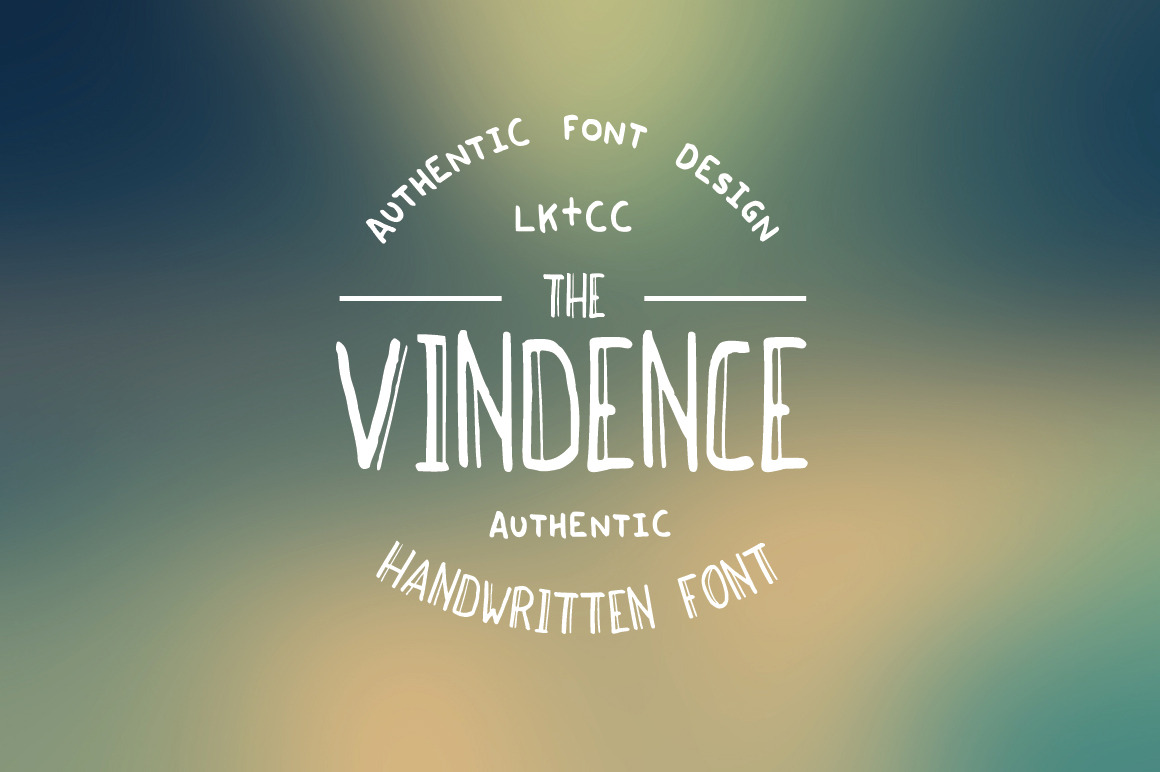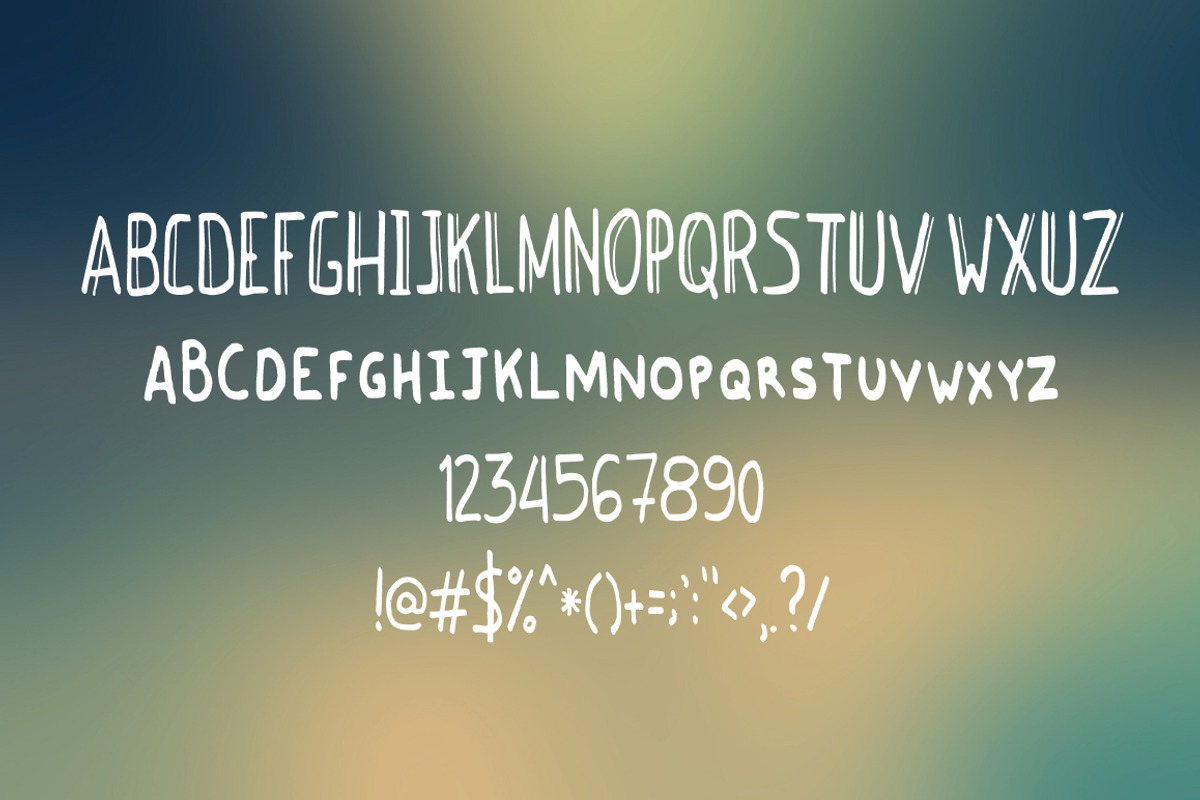
Vindence Handwritten Font
The font family is most suitable for headlines of all sizes. Vindence font is applicable for any type of graphic design in print graphics and perfect for logos, badges, t-shirts and other items like posters. Also I recommend it for Wedding Invitations and other romantic events.